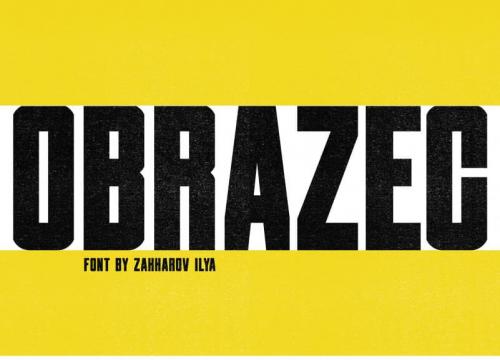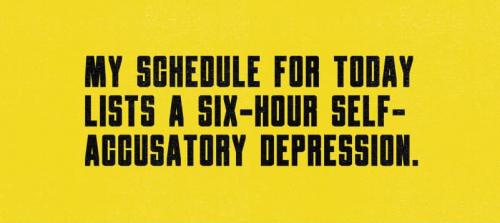
Obrazec Sans Serif Font
Obrazec Font is the modern display sans serif font. giving you the freedom to get creative with this font. With strong characters in the size of Black, it is very suitable for use for sign displays. and other sizes you can use as needed for your project.
It’s combines perfect mix of new and old styles. It’s was designed for fashion projects, magazine headers, logos and more.
• Designer: Ilya Zakharov